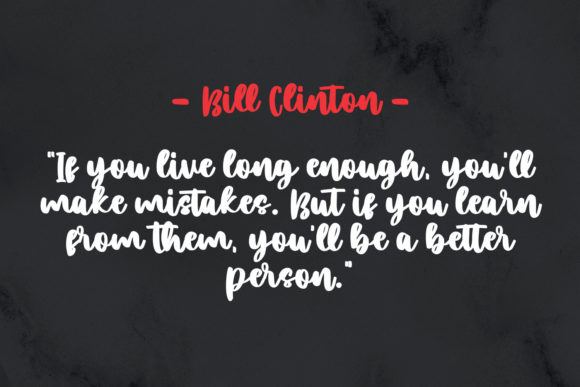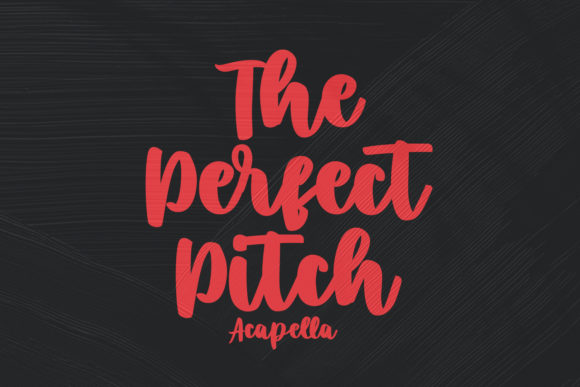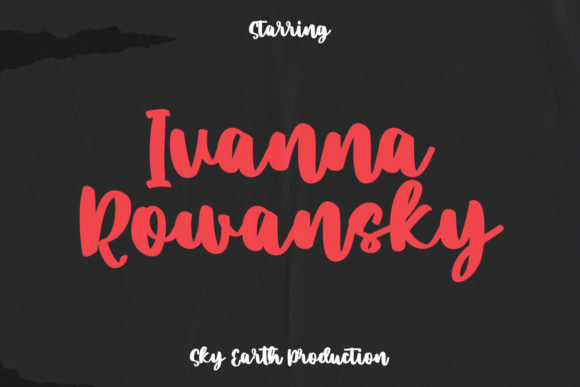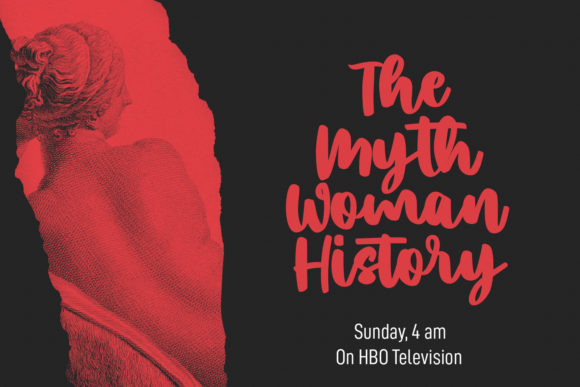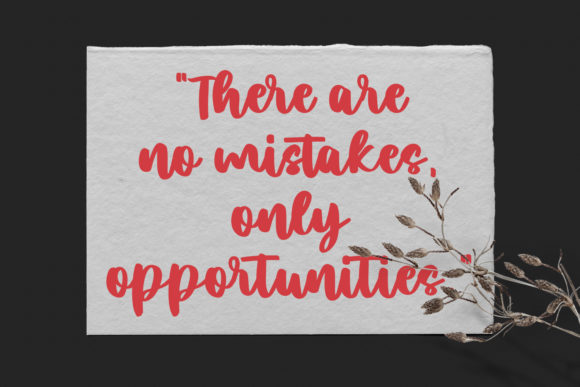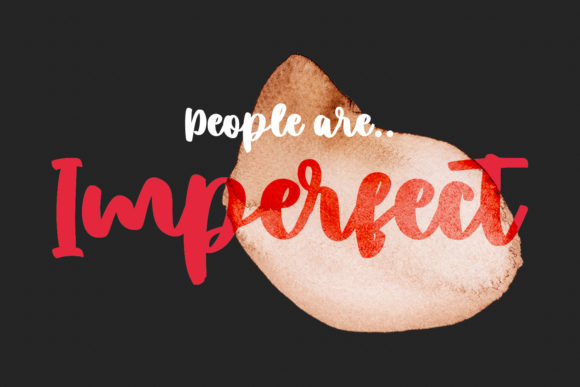
Introduction to Sailmelly Script Font
Do you remember that moment when you were working on a creative project, and you stumbled upon the perfect font to elevate your design? For me, that moment was when I discovered the enchanting Sailmelly Script Font. Its beautiful and thick lettered script immediately caught my attention, and I knew I had to share it with fellow designers and creatives.
As a valuable design resource, Sailmelly Script Font is a game-changer for any high-quality design project. Whether you’re crafting love letters, wedding invitations, or any other design idea, this lovely font is sure to leave a lasting impression. Plus, the best part? It’s available for free download, making it an accessible and versatile tool for designers of all levels.
With its transparent background and elegant style, Sailmelly Script Font is an essential addition to any designer’s toolkit. In this article, we’ll delve into the world of this captivating font and explore its many uses and benefits.
Key Features of Sailmelly Script Font
- High-quality design for creative projects, offering a beautiful and elegant script font style.
- Includes a transparent background, allowing for easy integration into various design elements.
- Font size: scalable, with a recommended size range of 12-24 points for optimal readability.
- Resolution: high-resolution, making it suitable for print and digital applications.
- Unique characteristic: cursive and handwritten feel, perfect for adding a touch of personality to creative projects.
Honest Review: Sailmelly Script Font
I recently had the chance to work with the Sailmelly Script Font, and I must say it’s been a game-changer for my creative projects. ✨
The Sailmelly Script Font is a high-quality design resource that offers a lot of flexibility and versatility. With its elegant and cursive design, it’s perfect for adding a touch of sophistication to any project. One of the standout features of this font is its transparent background, which makes it easy to layer and combine with other design elements.
Here are some of the things that work well with the Sailmelly Script Font:
- Beautiful, high-quality design
- Perfect for creative projects that require a touch of elegance
- Easy to use and customize
- May not be suitable for projects that require a bold or dramatic font
- Can be a bit tricky to read at small font sizes
Overall, I’m really impressed with the Sailmelly Script Font. It’s a great addition to any designer’s toolkit, and I’m excited to see what other creative projects I can use it for. ⚠️
Tips for Getting the Most Out of Sailmelly Script Font
To get the most out of Sailmelly Script Font, use it in combination with other design elements, such as images and graphics, to create a visually appealing design. Also, experiment with different font sizes and styles to add depth and interest to your design.
Common Use Cases for Sailmelly Script Font
The Sailmelly Script Font is a versatile design resource that can be used in a variety of creative projects, including wedding invitations, social media graphics, and business cards. Its high-quality design makes it a great choice for any project that requires a touch of elegance and sophistication.
Great Vibes is a beautiful, cursive script font that exudes a sense of warmth and elegance. It’s perfect for designers who want to add a touch of whimsy to their creative projects. Great Vibes is a great alternative to Sailmelly Script Font for designers who want a more playful, handwritten look.
Yes, the Sailmelly Script Font includes a transparent background, making it easy to use in designs with complex backgrounds or textures. This feature allows you to create stunning designs with the font seamlessly integrated into your creative project.